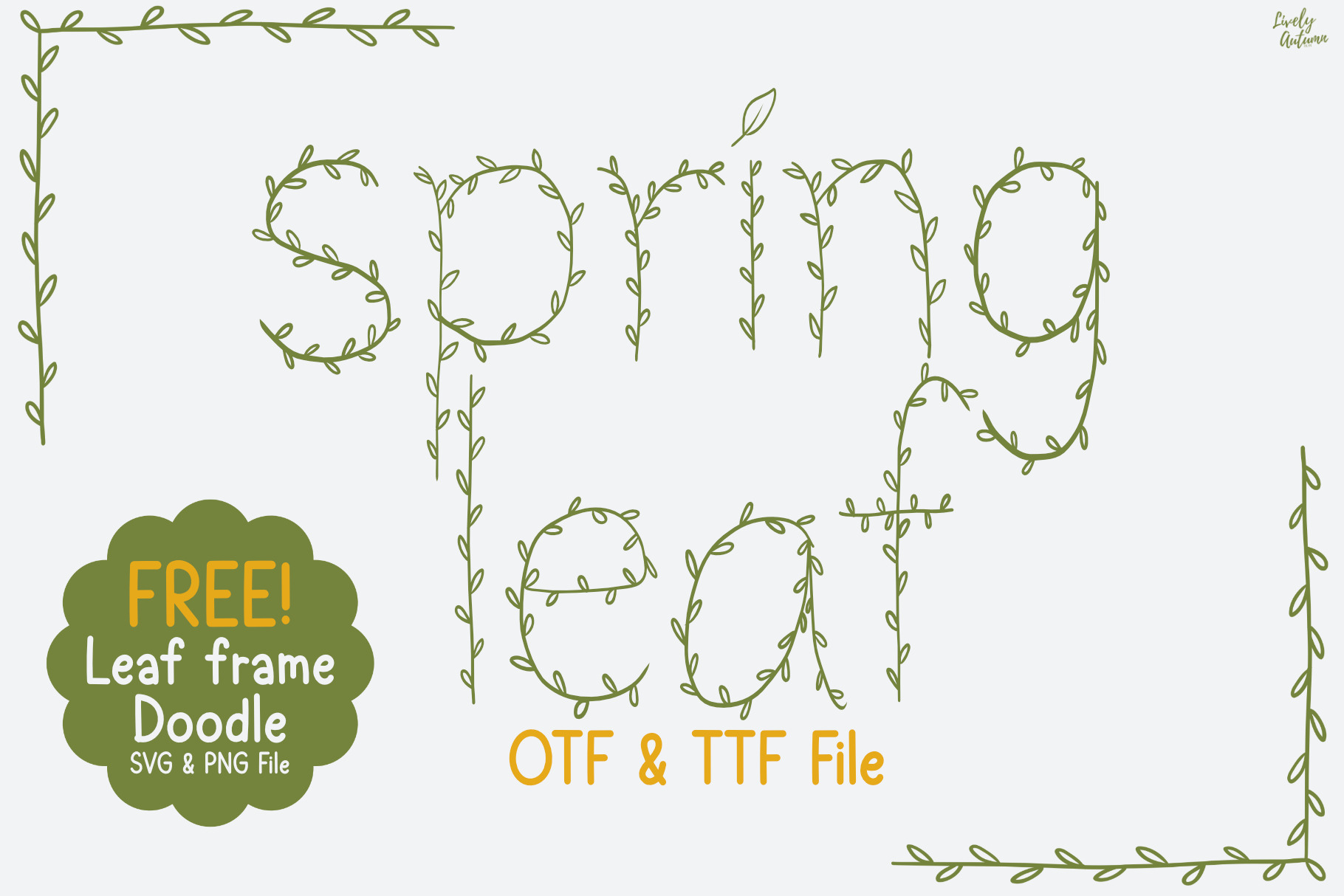
Springleaf | Handwriting Font
Springleaf Font is a handwriting font with a leaf doodle on each letter. Perfect for your personal projects and various project. From invitations to posters, social media graphics, journals, greeting cards, and much more.
- Font includes: uppercase, lowercase, numbers, and punctuation